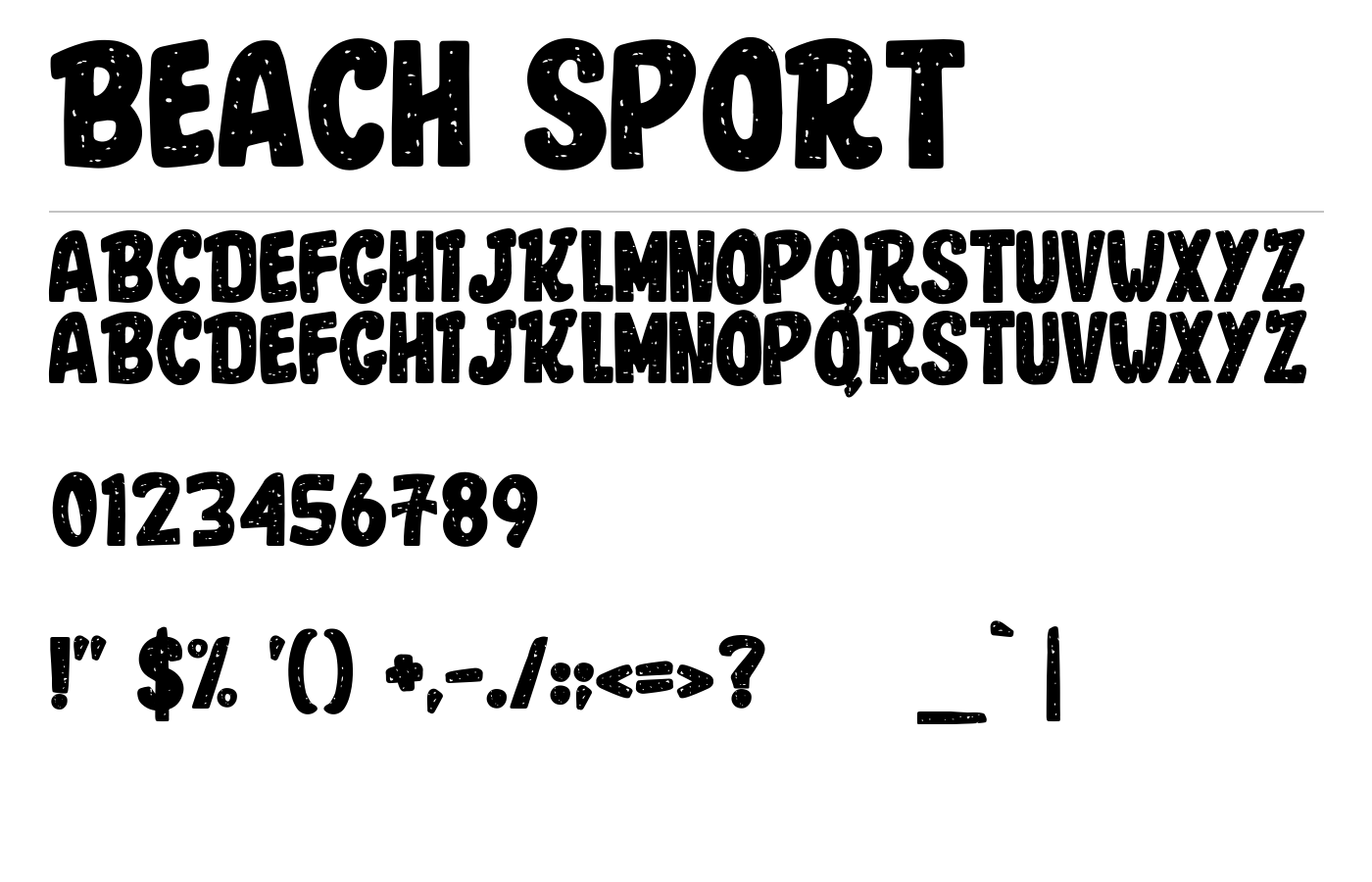
Beach Sport is a bold, playful sans serif font with a hand-drawn, slightly irregular style that adds a casual and fun vibe. Its rounded, chunky letterforms with quirky dotted textures make it perfect for lively, informal designs like beach-themed branding, posters, or children's products, where a cheerful and relaxed mood is desired. This font stands out in headlines and logos, bringing an energetic and approachable feel to any creative project.
Beach Sport Font
About Beach Sport Font